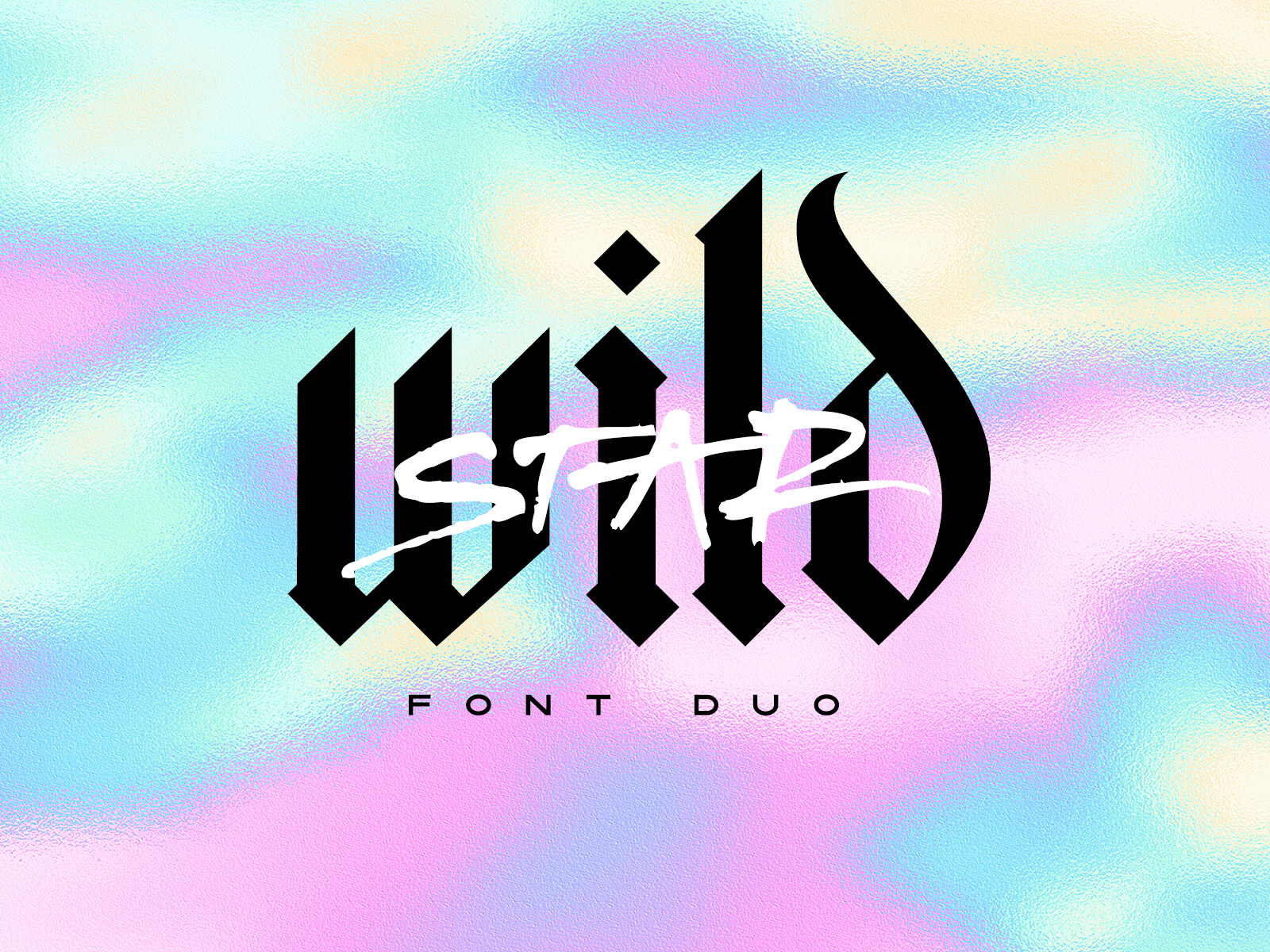
Wild Star Font Duo
Wild Star my first venture making a blackletter font and I really enjoyed the experience, despite some tricky characters! My aim was to create something modern & on-trend with a fierce edge to it. Alongside the blackletter font I've also created a scratchy, unrestrained script font to accompany it - allowing for some really fun type explorations (which is music to my ears). Not only that, there's also an outlined version of the blackletter font for an additional layout option.
The Wild Star font duo isn't afraid to make your message heard loud & clear. It’s a bold choice for merchandise, album artwork, logo designs, quotes & more.